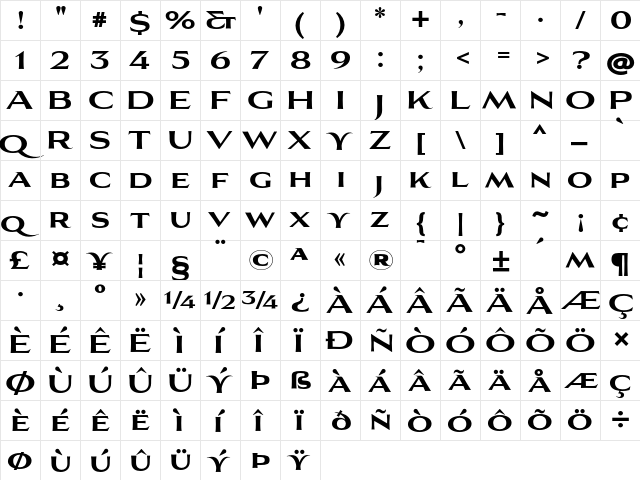
Aviano Flare Bold Bold
| Foundry | Jeremy Dooley |
| Designer | http://www.insignedesign.com |
| Year | 2010 |
Design Context for Aviano Flare Bold Typeface
Aviano Flare Bold is a composed and adaptable typeface that performs quietly and consistently across a wide range of design contexts. The heavy weight commands attention and anchors typographic hierarchies.